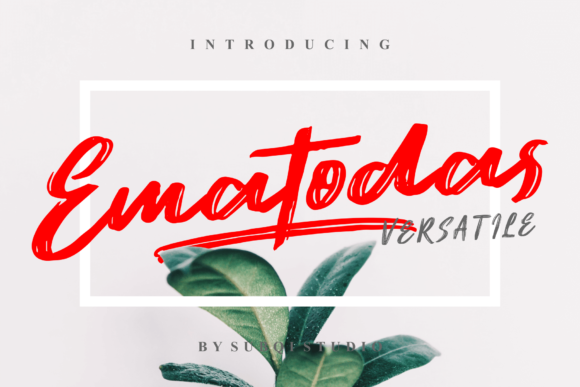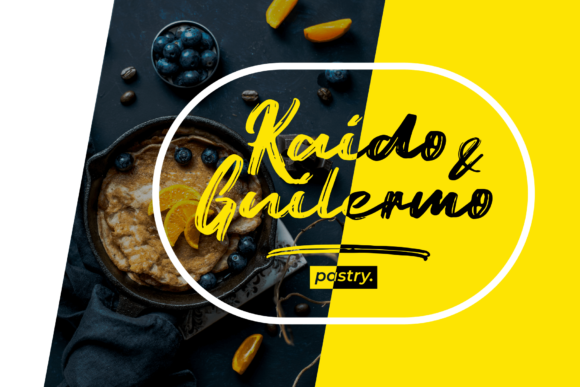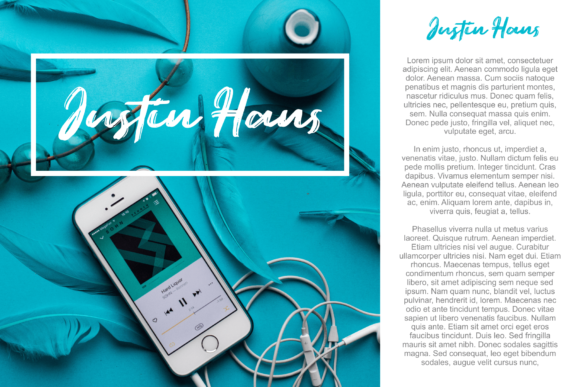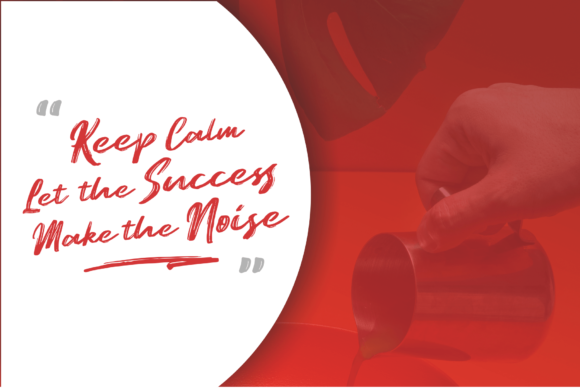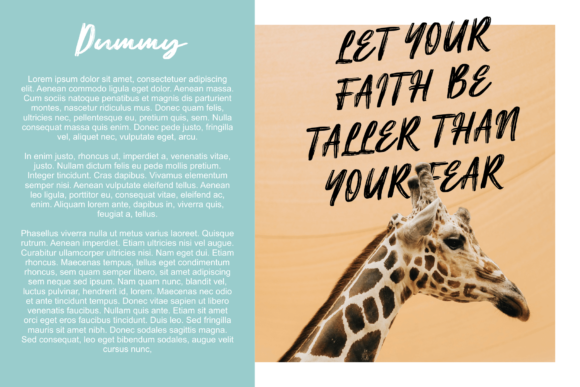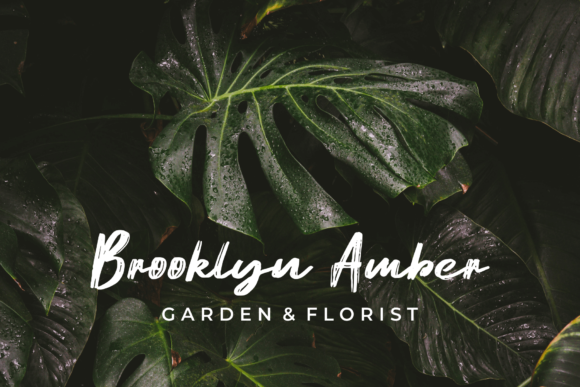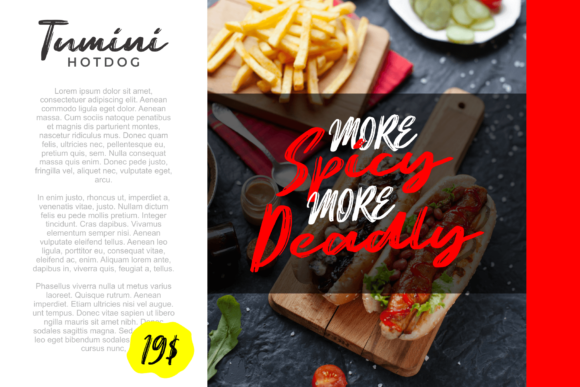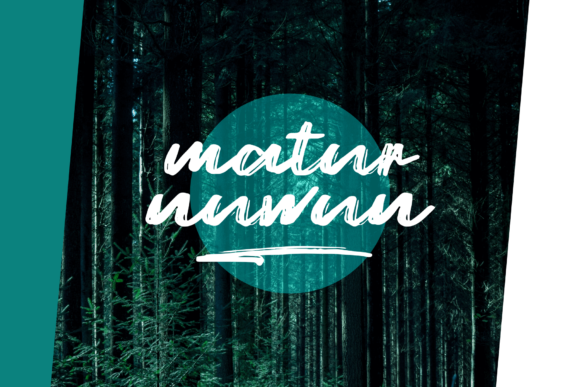
Ematodas Font
About Ematodas Font
The Ematodas is a bold handwritten brush typeface. It has a dry brush texture that you can almost feel.
It’s a versatile font, so you could play around with the caps and lower cases to create an unique design!